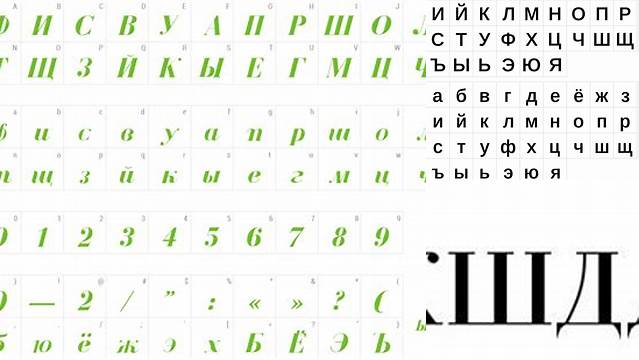
Hey guys! Are you looking for some awesome Cyrillic fonts, and you want them for free? Well, you've come to the right place! This article is all about free Cyrillic fonts from Google Fonts. We'll dive into how to find them, how to use them, and why Google Fonts is the go-to place for all your font needs. Whether you're a designer, a writer, or just someone who loves cool fonts, get ready to explore the world of Cyrillic typography, completely free of charge. Let's get started and find the perfect fonts to give your projects that extra flair! So, buckle up, and let's find you some amazing fonts! It's going to be a fun ride!
H2: What are Cyrillic Fonts, Anyway?
Okay, before we dive into the free Cyrillic fonts on Google Fonts, let's get the basics down. What exactly are Cyrillic fonts? Well, they're fonts designed to display the Cyrillic alphabet, which is used by a whole bunch of languages. Think Russian, Ukrainian, Serbian, Bulgarian—the list goes on! Basically, if you see those cool, unique characters that aren't the standard English alphabet, chances are you're looking at Cyrillic. These fonts are super important for anyone working with content in these languages. Imagine trying to read a Russian novel with a font that doesn't support Cyrillic – it'd be a mess, right? That's why having the right Cyrillic fonts is essential.
But why should you care, even if you're not fluent in Russian? Because Cyrillic fonts are gorgeous! They have a certain elegance and flair that can really elevate your designs. They offer a different visual texture and can add a unique touch to anything from website headers to social media graphics. Plus, the Cyrillic alphabet itself is just beautiful. It's got that certain 'je ne sais quoi' that makes your text pop! And the best part? You don't need to be a language expert to appreciate a well-designed font. You can just appreciate the aesthetic. When searching for those free Cyrillic fonts on Google Fonts, remember that variety is the spice of life. Experiment with different styles – some fonts are bold and striking, while others are delicate and graceful. Find the perfect fit for your project.
H3: The History and Evolution of Cyrillic Script
The Cyrillic script has a rich history, dating back to the 9th century. Created by the brothers Cyril and Methodius, it was originally used to translate religious texts into the Slavic languages. Over the centuries, it evolved and adapted, spreading across Eastern Europe and becoming the writing system for numerous languages. The evolution of the script reflects the cultural and linguistic changes of the regions where it was used. Each language adapted the script to suit its unique sounds and expressions, leading to different variations. Today, you can see Cyrillic in its various forms across countries like Russia, Ukraine, Serbia, Bulgaria, and many more. Its presence is a testament to its enduring impact. When you are searching for free Cyrillic fonts from Google Fonts, it's interesting to remember the script’s journey through time. Many of the fonts available on Google Fonts are modern interpretations, while others draw inspiration from historical styles. Understanding this history can give you a deeper appreciation for the fonts. The script's journey is a story of cultural exchange and linguistic diversity, making it a beautiful and integral part of global communication. It's more than just a collection of letters; it's a symbol of shared heritage and cultural identity.
H2: Why Google Fonts is Your Best Bet for Free Cyrillic Fonts
H2: How to Find Cyrillic Fonts on Google Fonts
Okay, let's get down to the nitty-gritty! How do you actually find those free Cyrillic fonts on Google Fonts? It's super easy, I promise. Let me walk you through it. First, head over to the Google Fonts website. Once there, you'll see a huge library of fonts. In the search bar, you can type in "Cyrillic" to filter for fonts that support the Cyrillic script. You can also use the filters on the left-hand side to narrow down your search. Under “Languages”, select Cyrillic, and boom! You'll see a list of all the Cyrillic-supported fonts. These filters are your best friends for finding exactly what you're looking for. You can filter by font style, like serif, sans-serif, or display, to match your design aesthetic. Experiment with different filters to discover new fonts.
H3: Using the Language Filter for Cyrillic Fonts
One of the most useful features on Google Fonts is the language filter. This is where you will find all those free Cyrillic fonts. When you click on the language filter, you'll see a bunch of different options. Check the box for “Cyrillic”, and the website will automatically show you all the fonts that support the Cyrillic script. The language filter is really your secret weapon. It makes finding fonts quick and efficient. This way, you will spend less time searching and more time designing. This is particularly helpful if you are working on a multilingual project. Make sure to test the fonts with Cyrillic characters to ensure they display correctly. The filter will ensure you don't waste your time on fonts that are not suitable. It's a simple but powerful tool that saves you time and frustration.
H3: Previewing Cyrillic Fonts Effectively
Once you've filtered for Cyrillic fonts, take some time to preview them. Google Fonts allows you to type in your own text and see how it looks in different fonts. This is super important for ensuring that the font will work well with your specific content. This preview feature lets you see the fonts in action before you commit. To preview, simply type in your text, and the website will show you how it looks in each font. You can also adjust the font size and weight to get a better sense of the font's appearance. Pay attention to how each Cyrillic character looks in the font. Make sure they are legible and visually appealing. Previewing fonts is an important step. It helps you avoid any unexpected surprises when you implement the font in your project. So, take advantage of the preview feature to find the best free Cyrillic fonts. Test them out thoroughly!
H3: Final Thoughts and Resources
I hope this article has inspired you to explore the world of Cyrillic fonts. Remember to visit Google Fonts. The website has a great collection of fonts for you to explore. There are also many other websites. They have free fonts. Also, there are many options for paid fonts. Keep practicing. Keep learning. And keep creating! Typography is a journey. It's a continuous process of learning and experimentation. I hope this article has helped you. Here are some useful resources. If you have any questions, feel free to ask. Happy designing! Let's keep using free Cyrillic fonts!